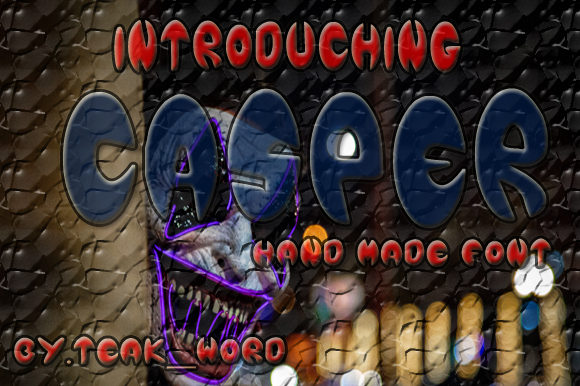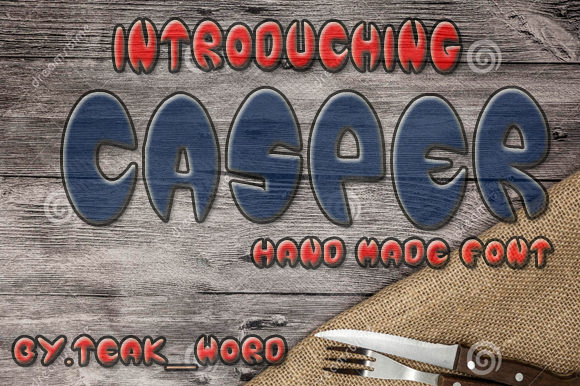
Casper Font: The Scary Good Display Font with a Cartoonish Vibe
Are you tired of using the same old fonts in your design projects? Look no further than Casper Font, a scary good display font with a cartoonish vibe that’s sure to take your designs to the next level. In this article, we’ll dive into the world of Casper Font and explore its features, benefits, and uses.
What is Casper Font?
Casper Font is a display font designed to add a touch of playfulness and whimsy to your designs. With its bold, chunky letters and cartoonish vibe, it’s perfect for designers and crafters looking to create eye-catching and engaging projects. Whether you’re working on a logo, poster, or social media graphic, Casper Font is sure to make your design stand out.
Features of Casper Font
So, what makes Casper Font so special? Here are just a few of its key features:
- Cartoonish vibe: Casper Font has a fun, playful feel that’s perfect for designs that need a bit of personality.
- Bold and chunky letters: The font’s bold, chunky letters make it easy to read and add a touch of drama to your designs.
- High-quality design: Casper Font is designed with high-quality craftsmanship in mind, ensuring that it looks great in any design project.
- Versatile: Whether you’re working on a digital project or a print project, Casper Font is versatile enough to work in any design scenario.
Benefits of Using Casper Font
So, why should you use Casper Font in your design projects? Here are just a few benefits:
- Adds personality to your designs: Casper Font’s cartoonish vibe adds a touch of personality to your designs, making them more engaging and fun.
- Easy to read: The font’s bold, chunky letters make it easy to read, even at smaller sizes.
- Stand out from the crowd: With its unique and playful design, Casper Font is sure to make your designs stand out from the crowd.
- Saves time: With Casper Font, you can create professional-looking designs in no time, saving you time and effort.
Uses of Casper Font
So, what can you use Casper Font for? The possibilities are endless, but here are a few ideas to get you started:
- Logos and branding: Use Casper Font to create a fun and playful logo that’s sure to grab attention.
- Posters and flyers: Add a touch of personality to your posters and flyers with Casper Font.
- Social media graphics: Use Casper Font to create eye-catching social media graphics that are sure to stand out.
- Invitations and cards: Add a touch of whimsy to your invitations and cards with Casper Font.
Tips for Using Casper Font
Here are a few tips for using Casper Font in your design projects:
- Use it sparingly: While Casper Font is a great font, it can be overwhelming if used too much. Use it sparingly to add a touch of personality to your designs.
- Experiment with colors: Casper Font looks great in a variety of colors, so don’t be afraid to experiment and find the perfect color for your design.
- Pair it with other fonts: Casper Font pairs well with a variety of other fonts, so don’t be afraid to get creative and try out different font combinations.
| Font Name | Casper Font |
| Author | TeakWord |
In conclusion, Casper Font is a scary good display font with a cartoonish vibe that’s sure to take your design projects to the next level. With its bold, chunky letters and playful design, it’s perfect for designers and crafters looking to add a touch of personality to their designs. Whether you’re working on a logo, poster, or social media graphic, Casper Font is sure to make your design stand out. So why wait? Give Casper Font a try today and see the difference it can make in your designs!